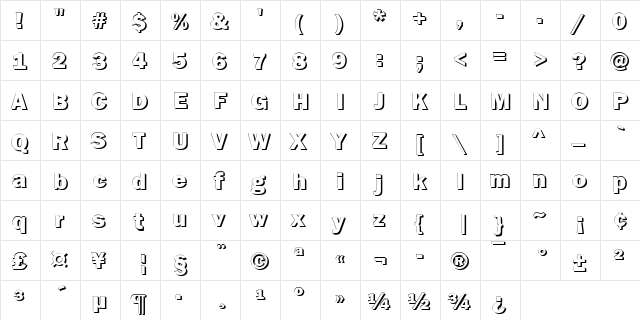
Goffik-Shadow Shadow
| Designer | George Herbert Hirst & Wilfred Rhodes |
Design Context for Goffik-Shadow Typeface
Goffik-Shadow brings ornamental detail and strong personality to headlines and identities, where visual impact matters more than quiet functionality.
Font Pairing: Pair with a clean neutral sans-serif for body copy to let Goffik-Shadow's character lead without overwhelming the composition.
Pro Tip: Use Goffik-Shadow exclusively at display sizes — it was designed to be seen, not read at length. Let a neutral companion handle body copy.